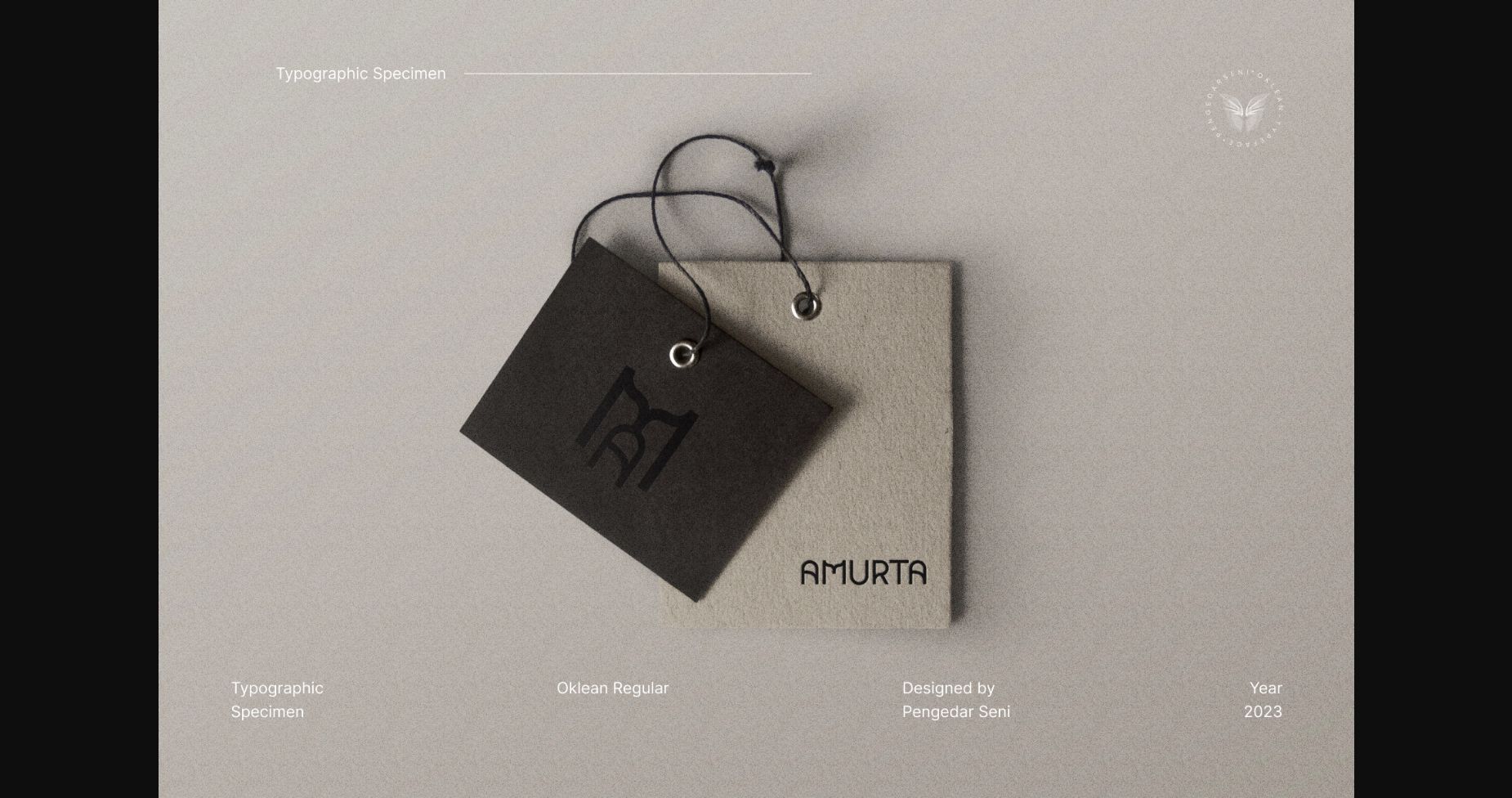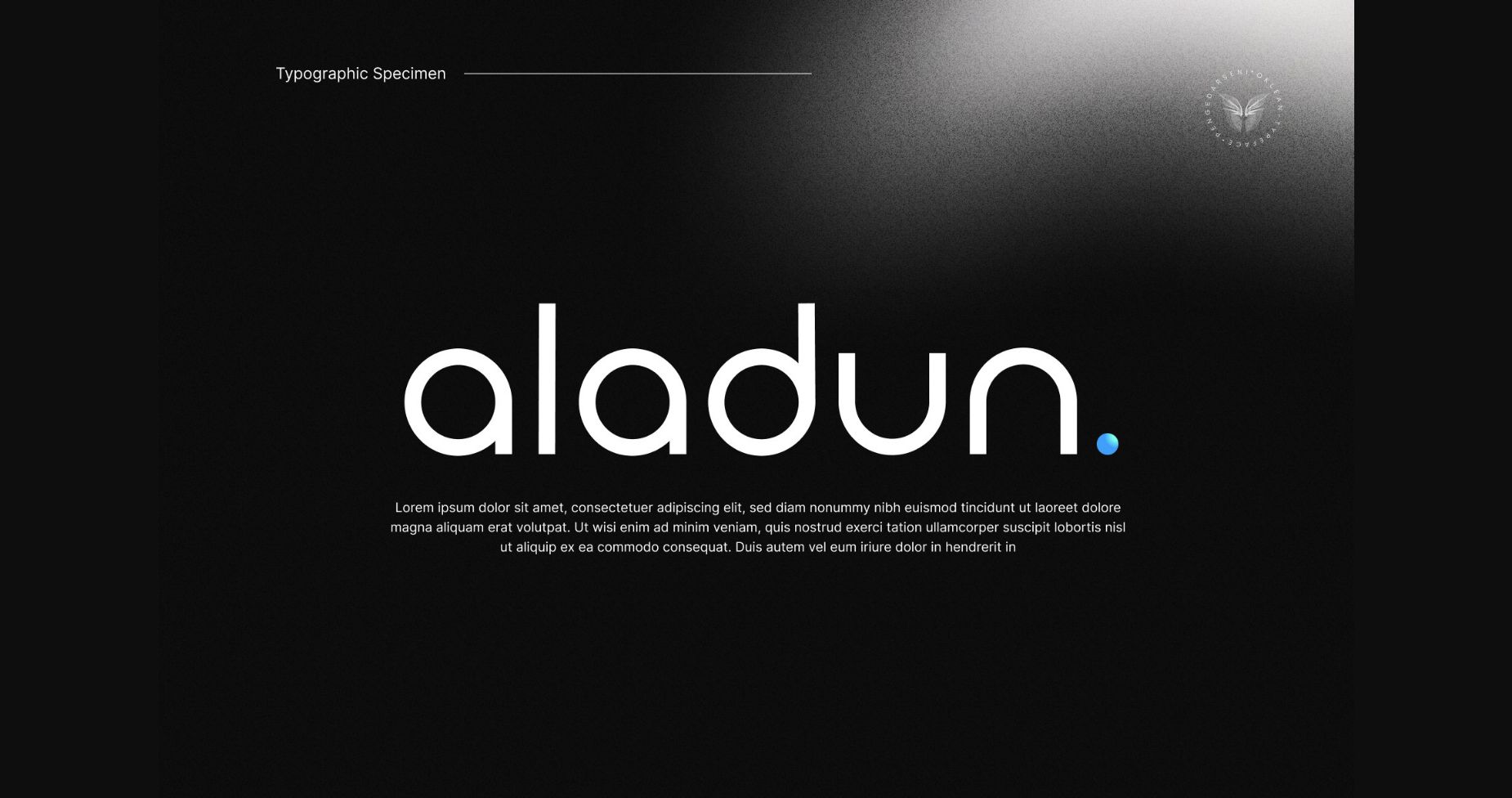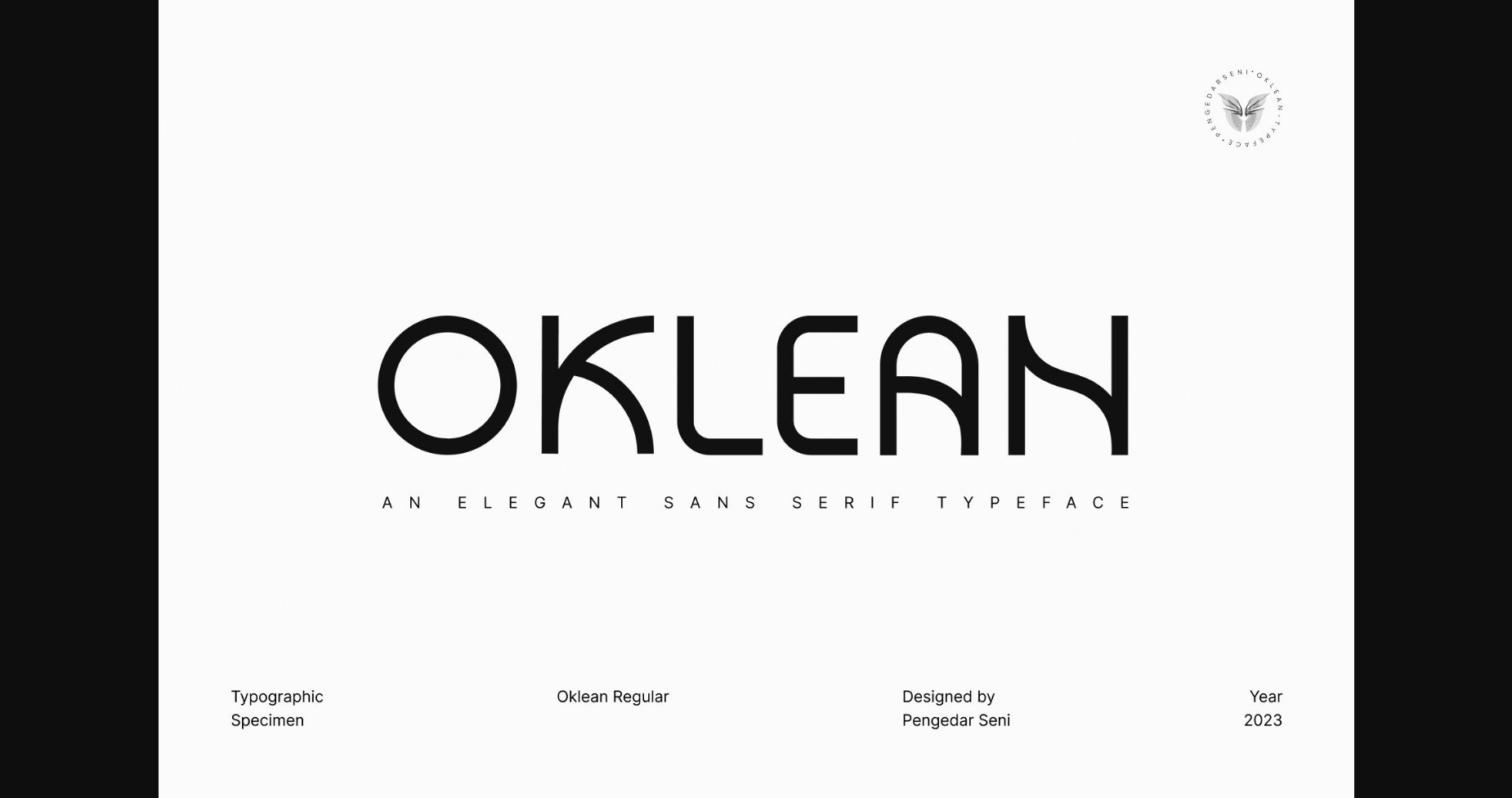
About Oklean Font
Oklean is a stylish and modern sans serif font that features clean lines and a sleek, minimalist design. Its versatility makes it perfect for a wide range of applications, from branding and web design to editorial and advertising projects. The font’s simplicity and elegance make it a popular choice for contemporary designs.